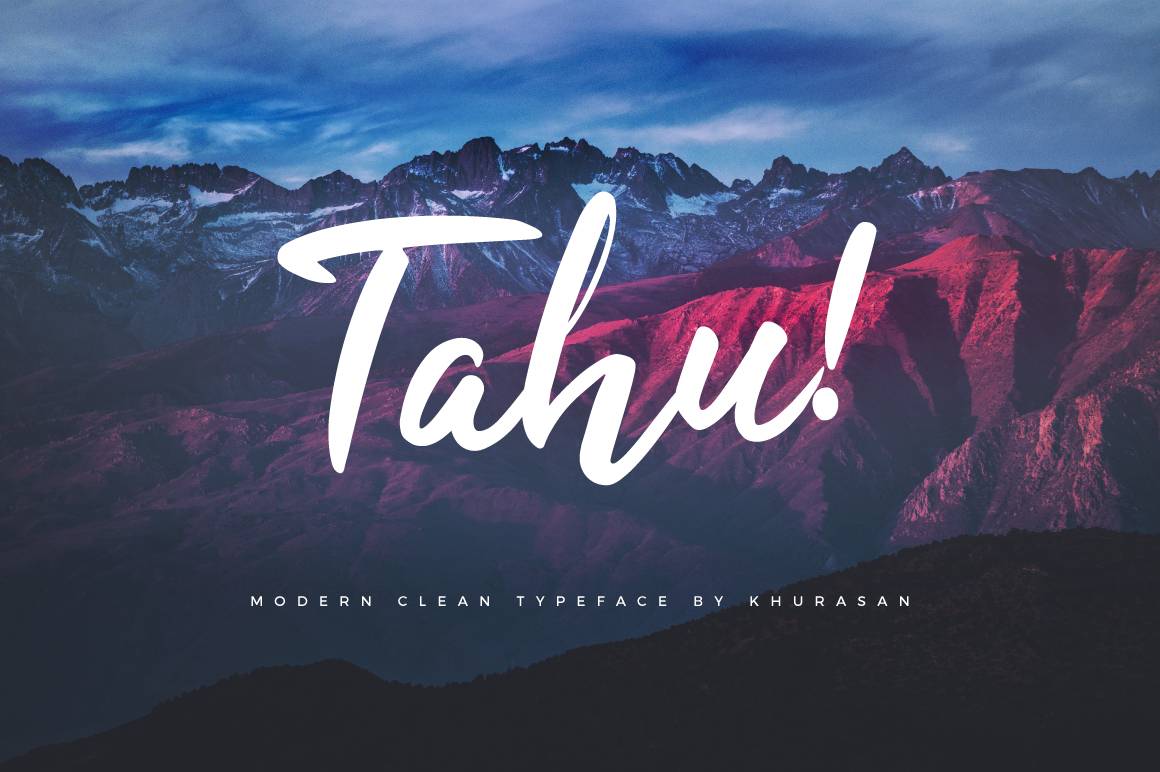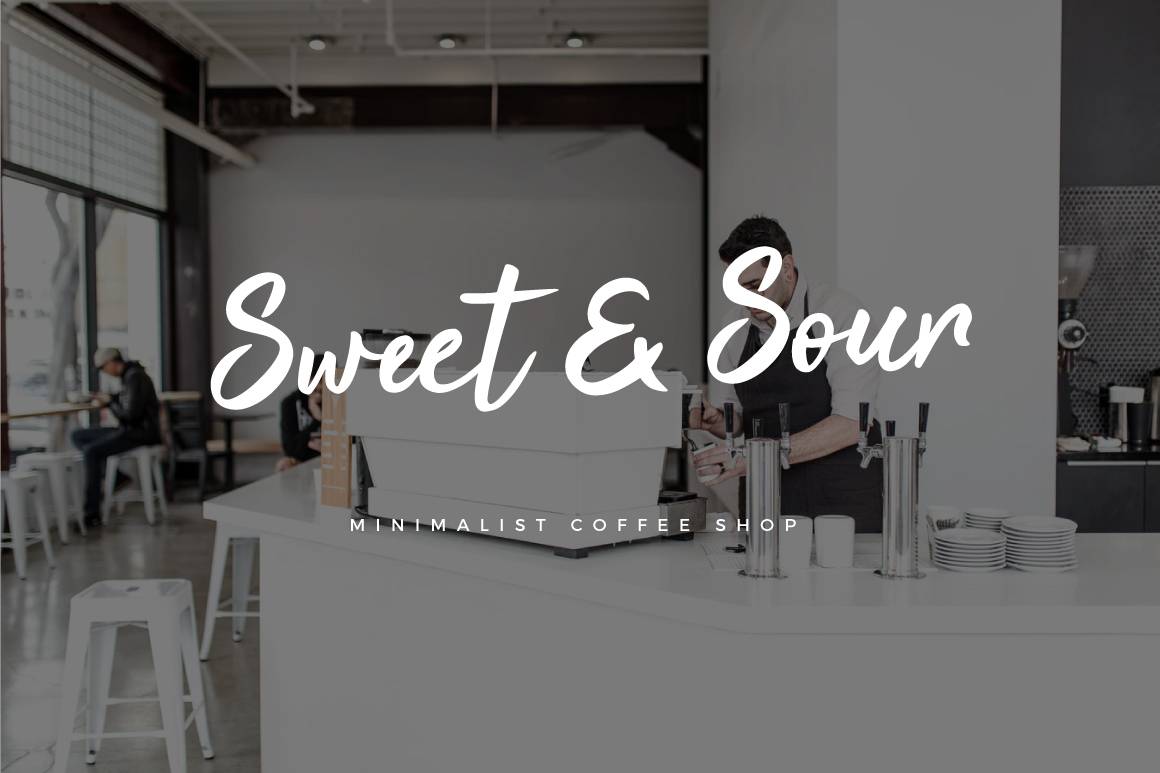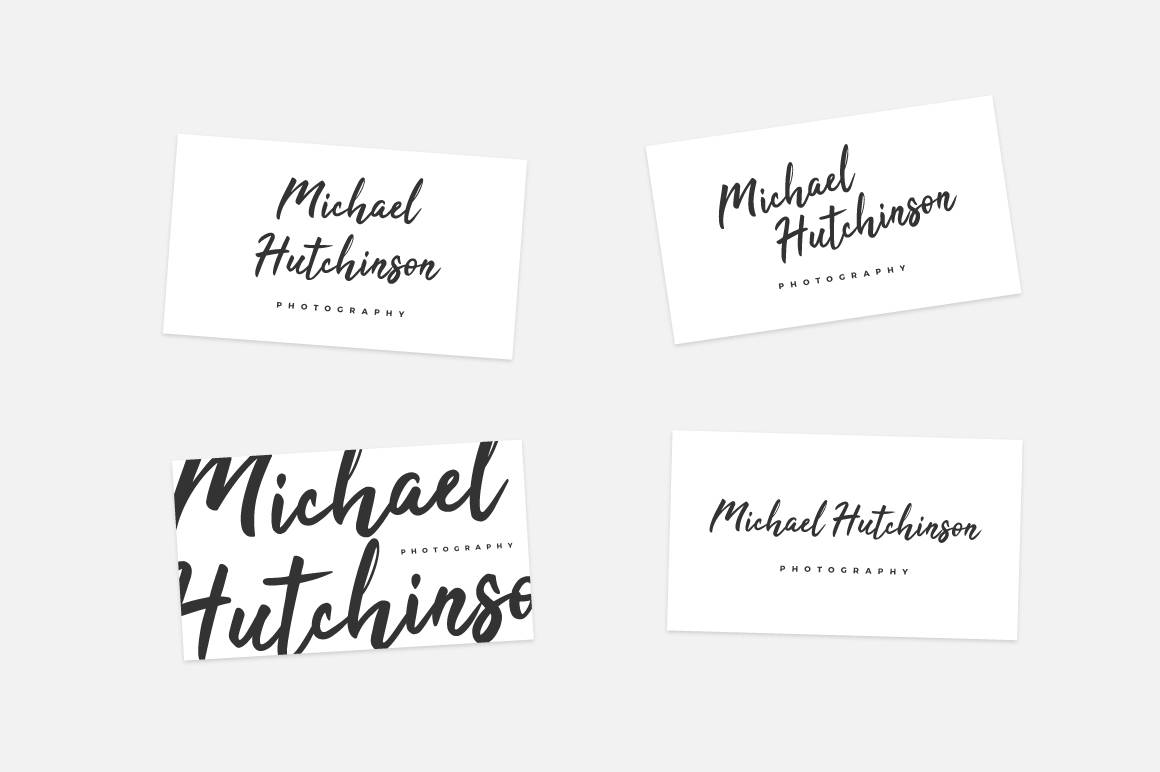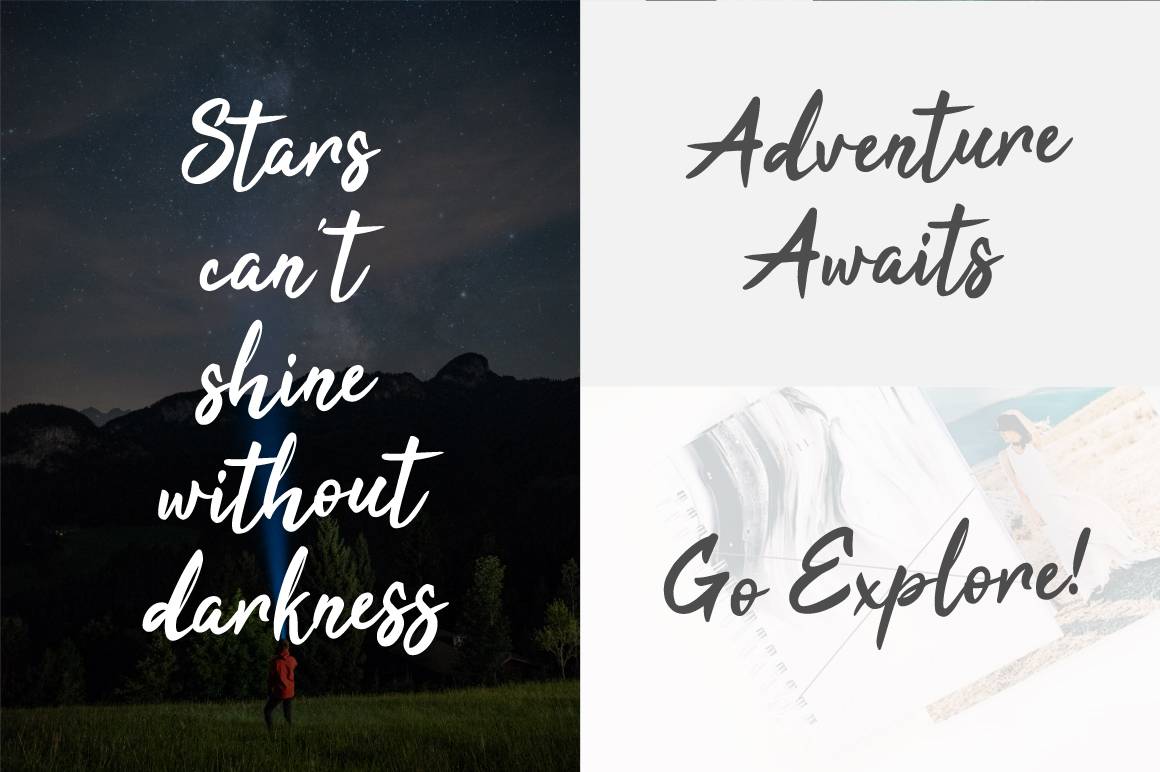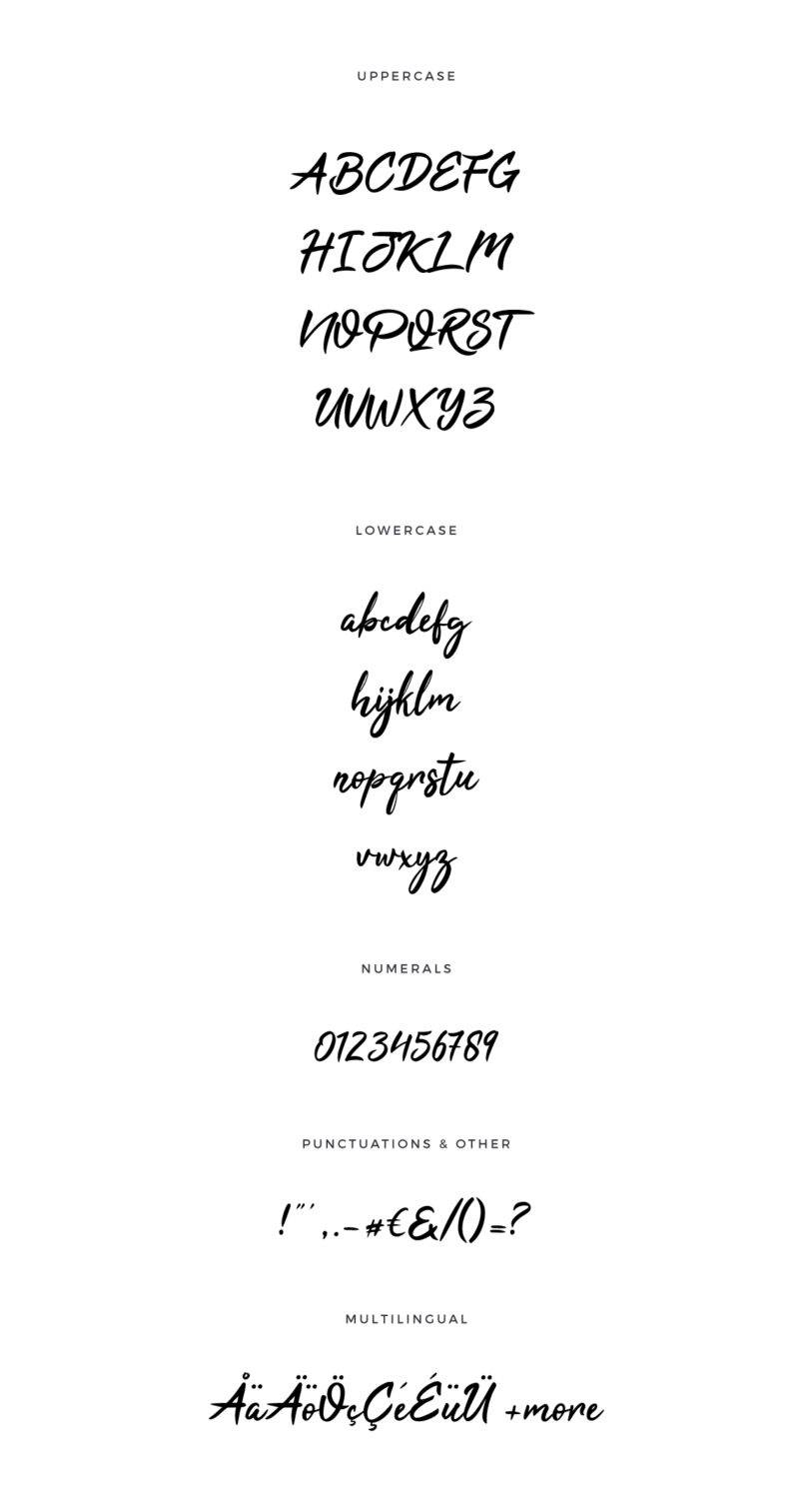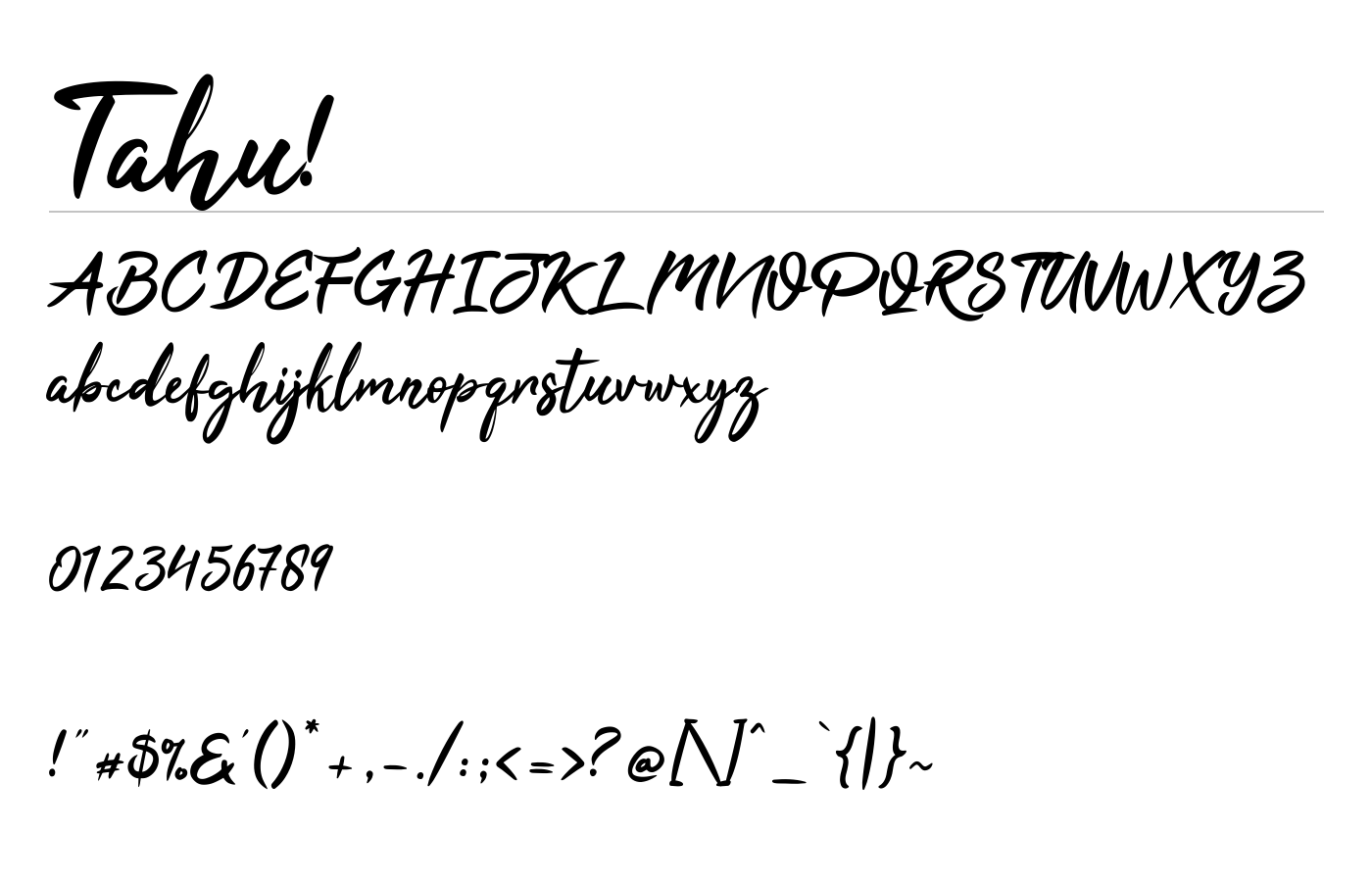
Tahu
Introducing you to a clean and professional modern script font, Tahu! Use it for ads, logos, branding, or anything that you’ll need. This is free for commercial use so feel free to use it to prosper. This free typeface was designed by talented Rizal Khurasan. If you like it don’t forget to check out the full version.